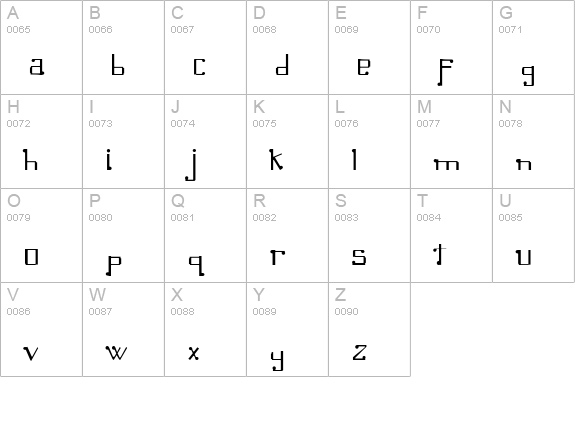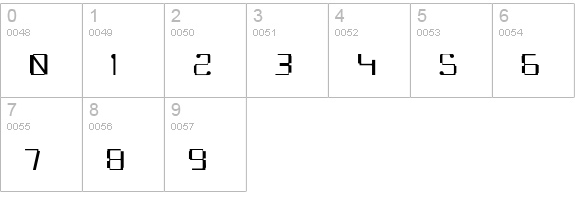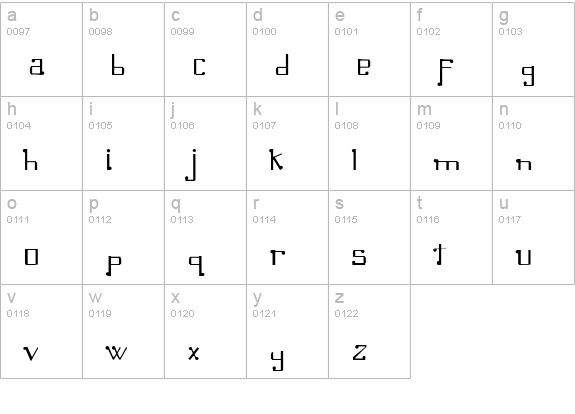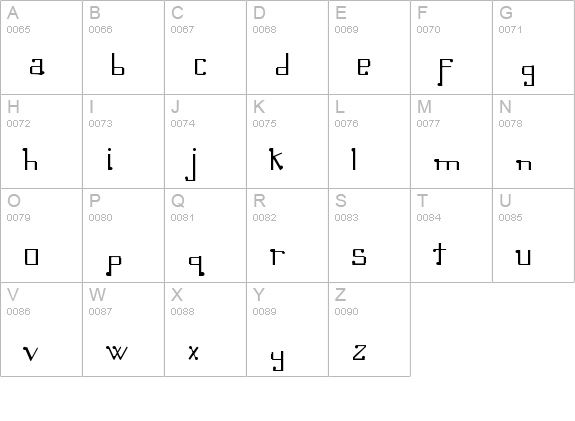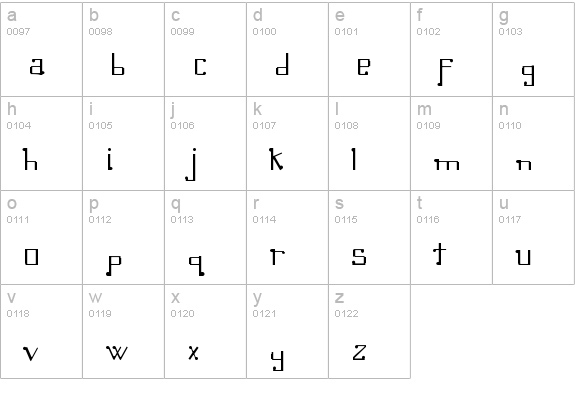
Omellons Light is a refined, elegant variant in the Omellons typeface family \xE2\x80\x94 well suited to elegant body text, refined sub-headings, and luxury branding.
Omellons Light font is a sleek and modern typeface that combines elegance with readability. Its clean lines and stylish curves make it the perfect choice for a wide range of design projects, from branding to editorial layouts. The light weight of this font adds a touch of sophistication and delicacy to your text. What sets Omellons Light font apart is not only its aesthetic appeal but also its accessibility. This font is available for free download at FontsMarket.com, making it a versatile and budget-friendly option for designers and creatives. Whether you're working on a personal project or a professional assignment, Omellons Light font is sure to elevate your designs with its timeless charm and versatility.